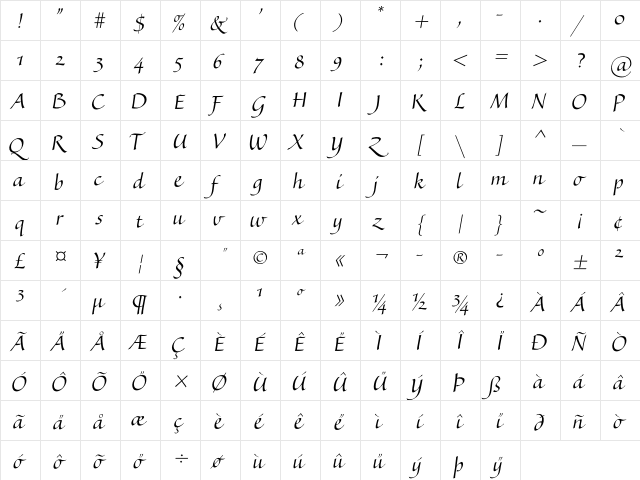
Boscribe Std Regular Font Preview
Boscribe Std Regular
Design Context for Boscribe Std Typeface
Boscribe Std is a composed and adaptable typeface that performs quietly and consistently across a wide range of design contexts.
Dating back to 1989, this typeface is available in OpenType (OTF) format.